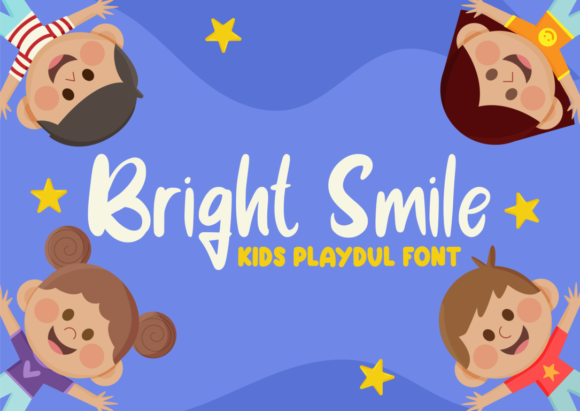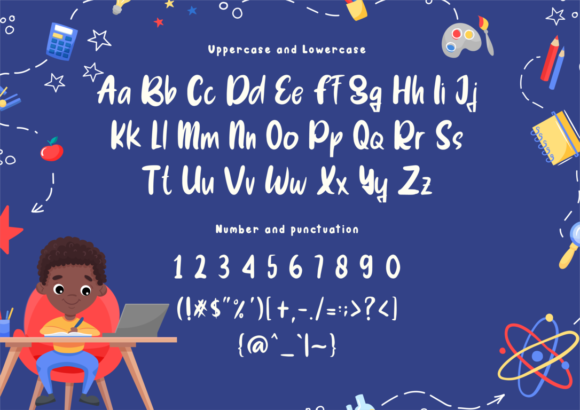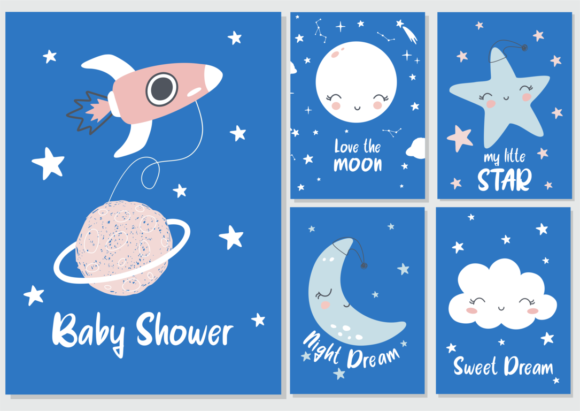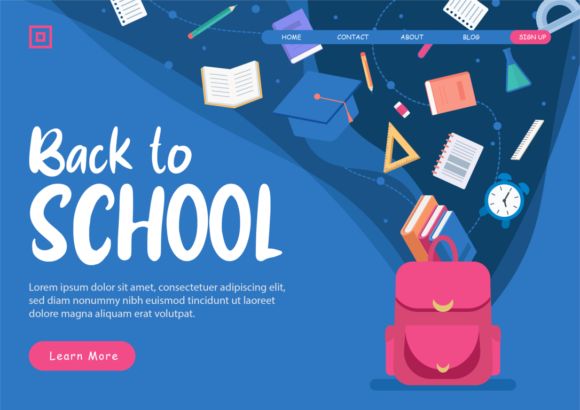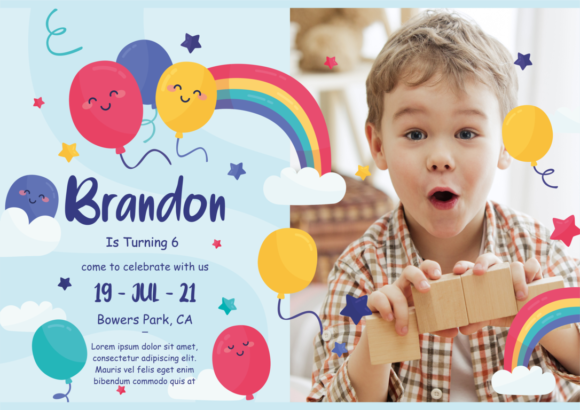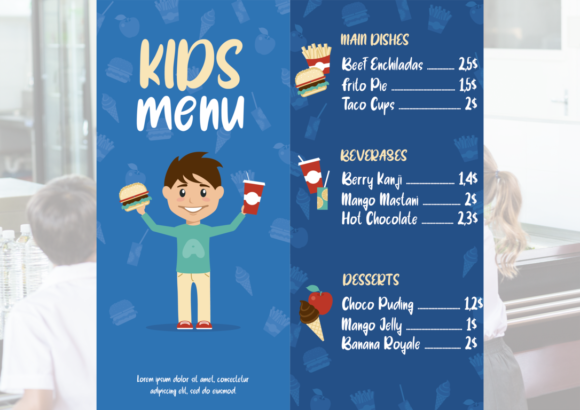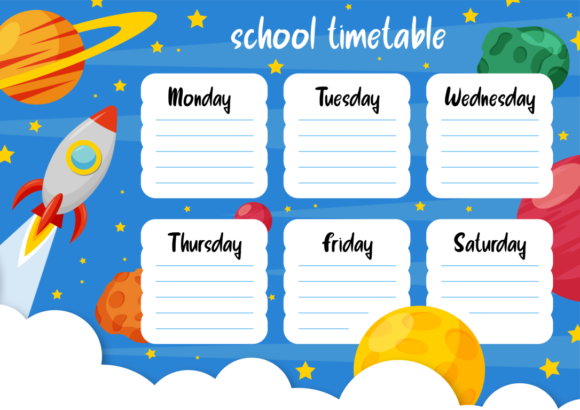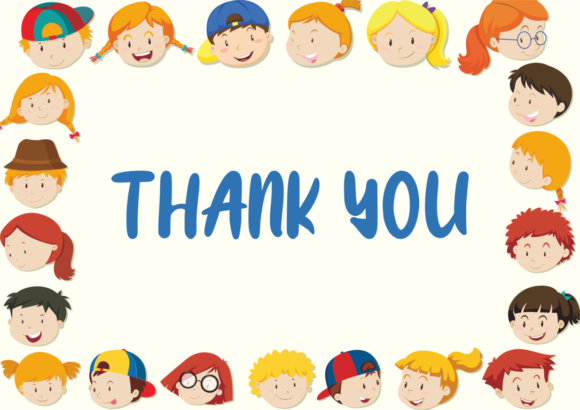
Bright Smile Font
About Bright Smile Font
Bright Smile is a fun and joyful handwritten font. It is perfectly suitable for children’s projects, kindergarten designs, storybooks, games, and other projects alike!